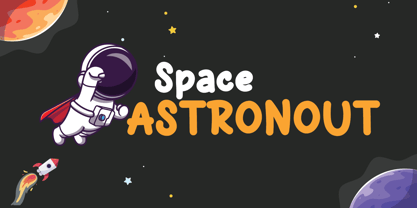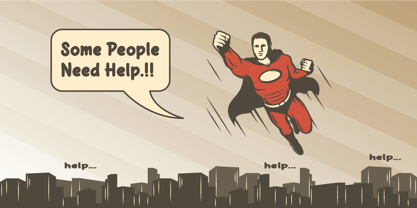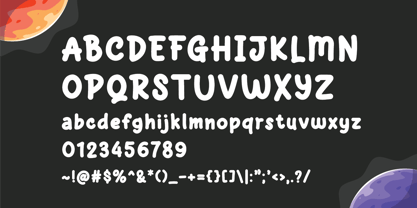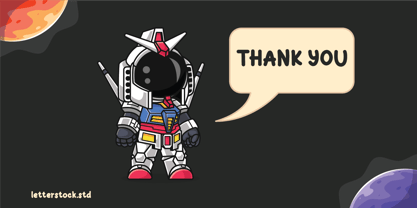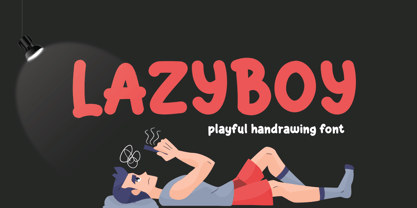
Lazyboy
by LetterStock
The Lazyboy Font Family was designed by Studio LetterStock and published by LetterStock. Lazyboy contains 1 styles. More about this family
Lazyboy is modern sans font insprire by modern grotesque with geometric details and deep in industrial design principles.
Lazyboy is a perfectly choice for any creative endeavor, chic, lifestyle design such as logos, advertisements, watermark on photography, stationery, branding project, display and magazine, invitation, corporate brand, product design, label, business project and many other project with elegant touch.